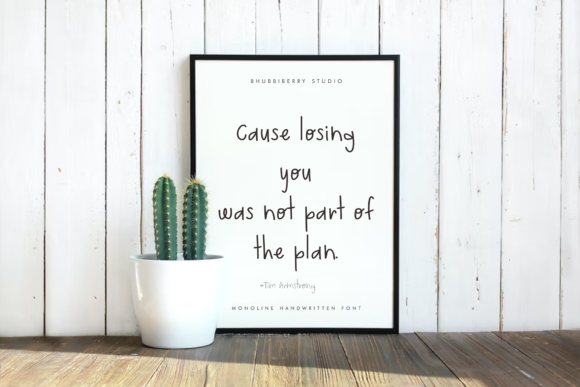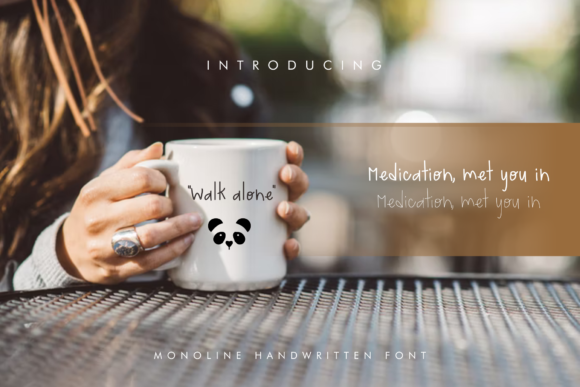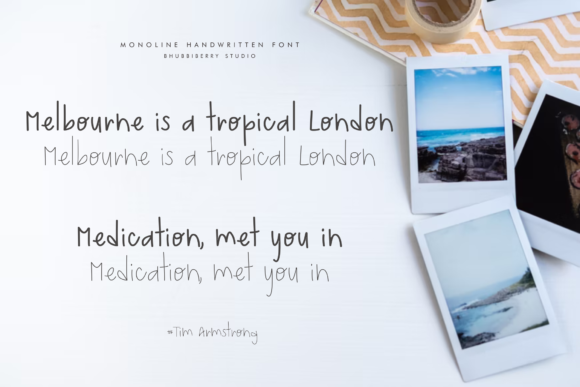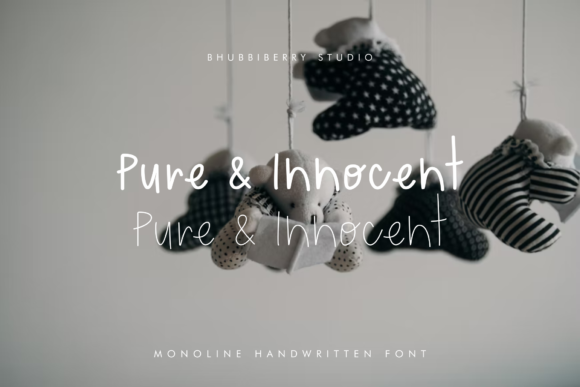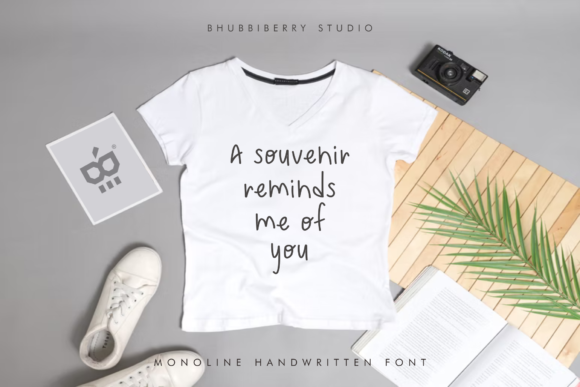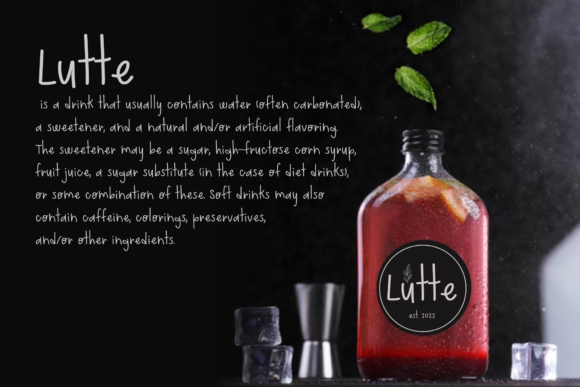
Introduction to Lutte Font
As a designer, there’s nothing quite like that moment when a project comes together and you see your vision take shape. For me, it’s often the little details that make all the difference – the perfect font, the right color palette, the subtle texture that adds depth and interest. And that’s exactly why I’m excited to share with you one of my favorite design resources: the Lutte Font.
This thin, elegant script font is a game-changer for any creative project. Its simplicity and high quality make it perfect for quotes, social media designs, and even invitations. And the best part? It’s available for free download, making it an accessible design resource for designers of all levels. Whether you’re looking to add a touch of sophistication to your design or simply want a clean and easy-to-read font, the Lutte Font is a valuable addition to any designer’s toolkit.
With its transparent background and versatile design, the Lutte Font is the perfect tool for designers who want to express their creativity without the hassle of complicated design elements. So why not give it a try and see how it can elevate your next design project?
Key Features of Lutte Font
- Unique characteristics include bold and elegant lines, making it perfect for headings and titles in creative projects.
Honest Review: Lutte Font
Lutte Font has been a valuable addition to my design toolkit, and I’m excited to share my honest review with you. As a designer, I’m always on the lookout for high-quality, free downloads that can elevate my creative projects.
What works well: ✨ Lutte Font offers a wide range of stylish and modern fonts that can add a touch of sophistication to any design. The transparent background allows for seamless integration with other design elements, making it a great resource for designers who value versatility. The font is also incredibly easy to use, with a clear and concise character map that makes it simple to select the perfect characters for your project.
- Wide range of stylish and modern fonts
- Easy to use with a clear character map
Limitations: ⚠️ While Lutte Font is a great resource, it’s not without its limitations. The font family is relatively small, which may not be ideal for designers working on large-scale projects. Additionally, the font may not be compatible with all operating systems, which could cause issues for designers who work with a diverse range of clients.
Overall, I’m impressed with Lutte Font and would recommend it to designers looking for a high-quality, free design resource. While it may have some limitations, the benefits far outweigh the drawbacks, making it a valuable addition to any design toolkit.
Lutte Font
Lutte Font is a high-quality design resource that can elevate your creative project to the next level. With a transparent background, this font is versatile and easy to use in various applications.
Tips for Getting the Most Out of Lutte Font
Here are some tips to get the most out of Lutte Font: use it in combination with other design elements, experiment with different font sizes and colors, and use the font in a variety of creative projects.
Lutte Font is commonly used in various creative projects, including logos, business cards, and marketing materials. It’s also a great resource for designers who want to add a touch of elegance to their designs.